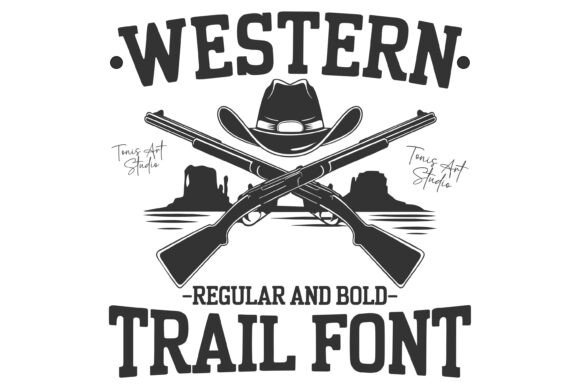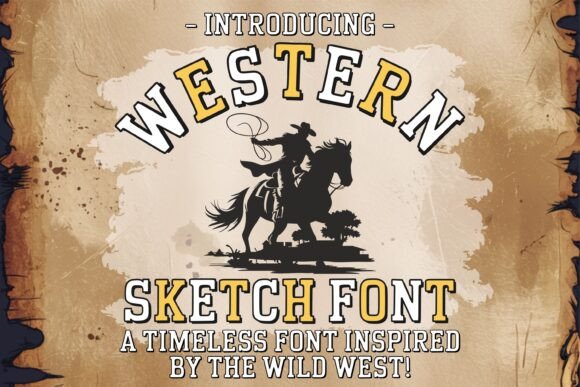
Western Rodeo Bundle Font
The Western Font Bundle is a rugged, bold, and rustic typeface collection designed to bring the spirit of the Wild West to your creative projects! This western-themed font pack is perfect for country, rodeo, and vintage designs—ideal for crafting, Procreate, Cricut, Silhouette, and Canva users alike.
With its bold serifs, textured sketch styles, and dynamic shadow effects, this font bundle is great for everything from farmhouse signs and rodeo posters to t-shirts, branding, and social media graphics. Add a rustic cowboy touch to your projects or keep it classic and bold—the possibilities are endless!